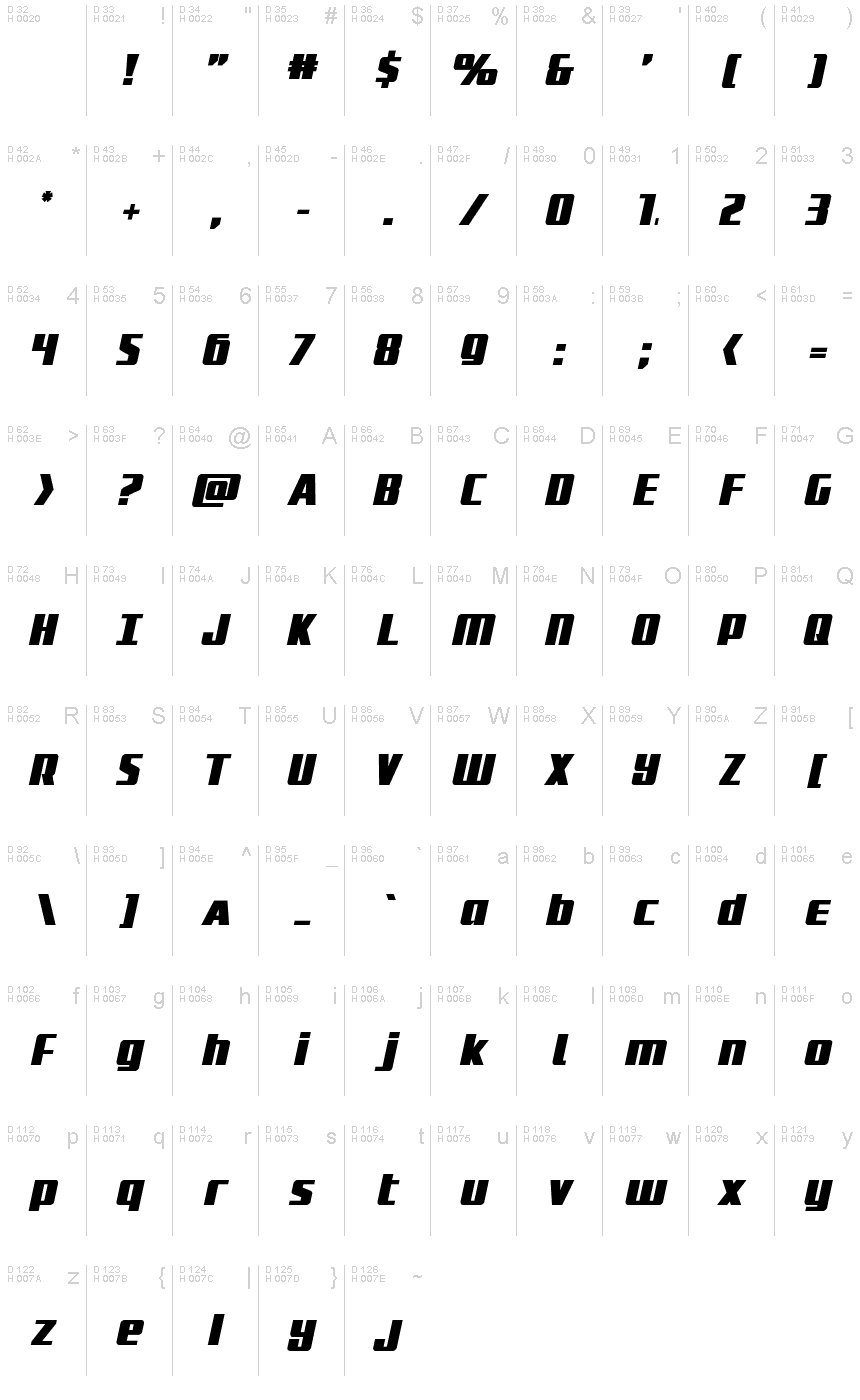
Subadai Baan Bold Italic, created by Iconian Fonts in 2023, is a free modern display font with an assertive, tightly packed silhouette and alternating rounded shoulders and knife-cut corners. Its steep forward slant and sharply clipped joins give the broad strokes a sense of speed.
The wedge-like forms can echo diagonal racing stripes, metallic bodywork, and angular sports graphics, making the font a convincing fit for large-scale motorsport posters, promotional team merchandise, and high-speed game title screens. That same compressed force suits action publishing and athletic branding, especially projects built around competition, combat sports, custom vehicles, machinery, or high-impact entertainment.